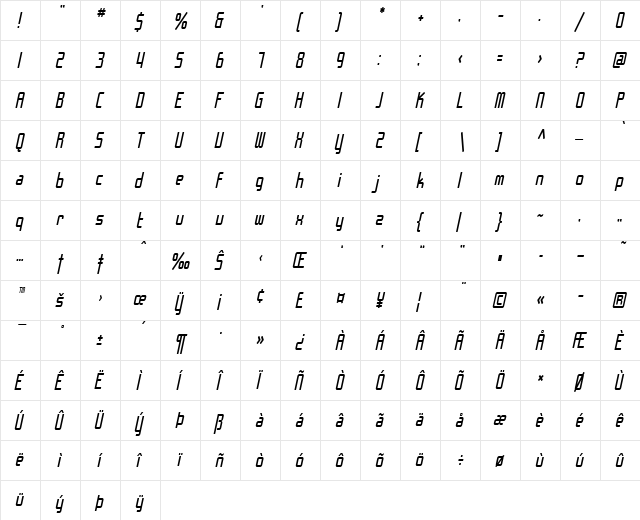
SF Chrome Fenders Condensed Oblique Font Preview
Design Context for SF Chrome Fenders Condensed Typeface
SF Chrome Fenders Condensed is a composed and adaptable typeface that performs quietly and consistently across a wide range of design contexts. The slanted form adds forward momentum and visual energy. The condensed width makes it efficient for tight spaces without sacrificing legibility.
Pro Tip: Try SF Chrome Fenders Condensed for annotation and caption copy alongside an upright companion — the contrast in angle creates a dynamic but ordered typographic system.